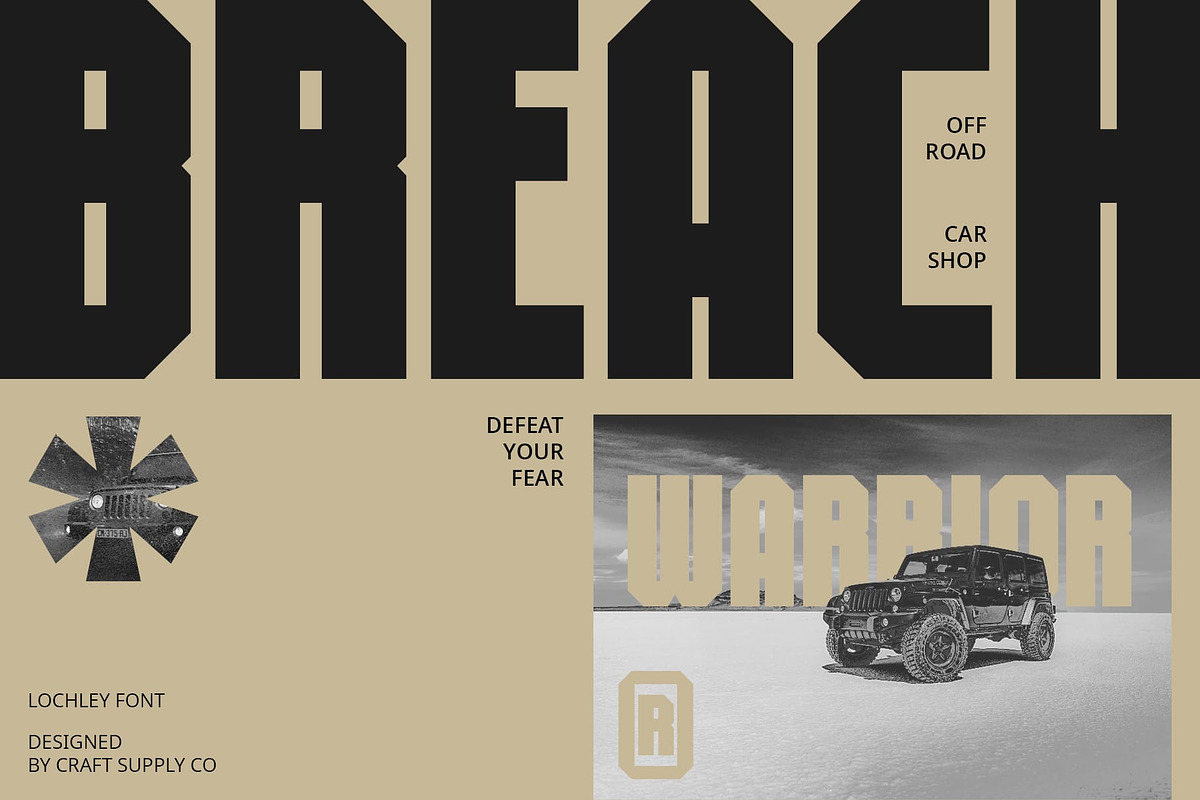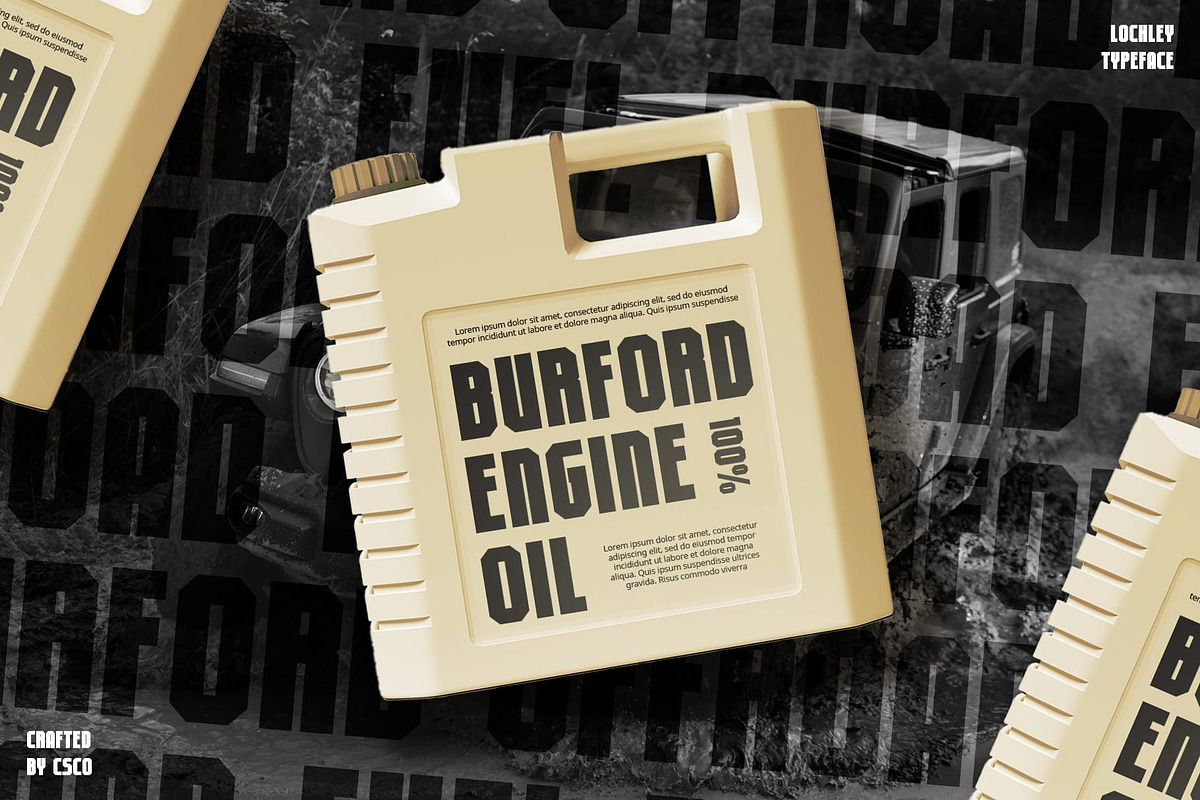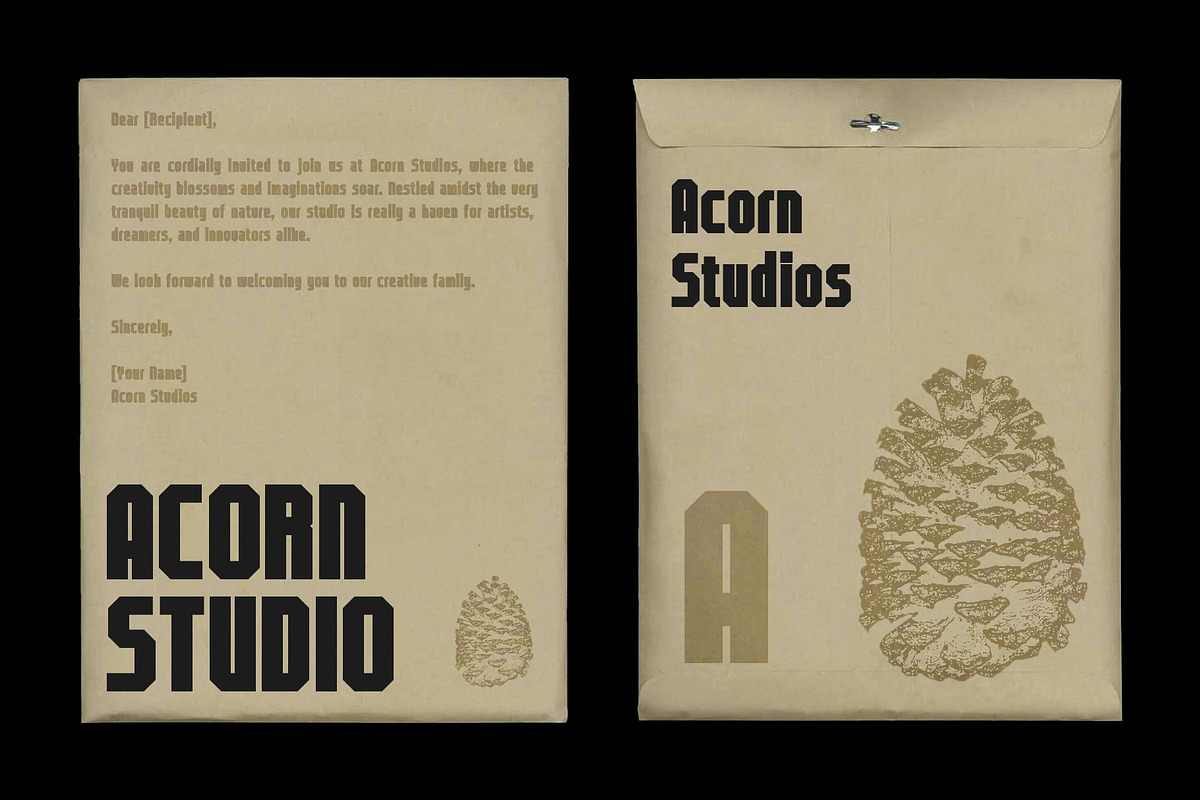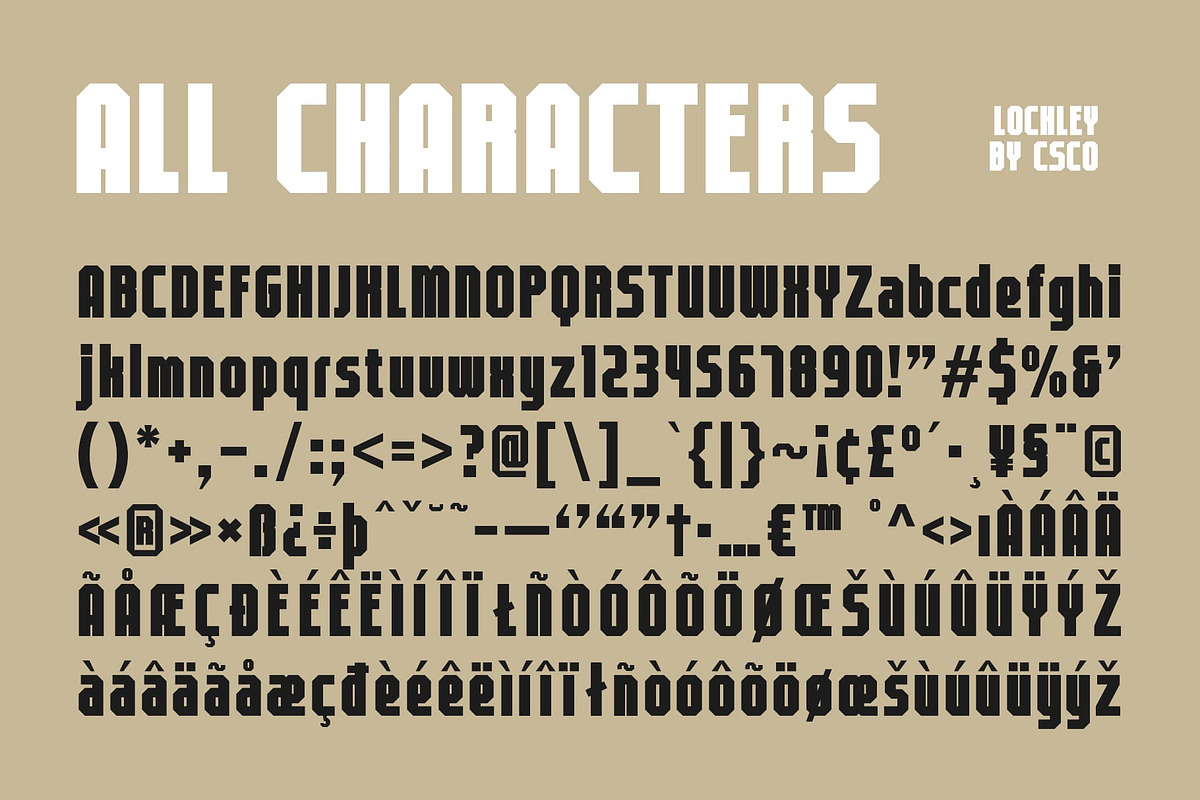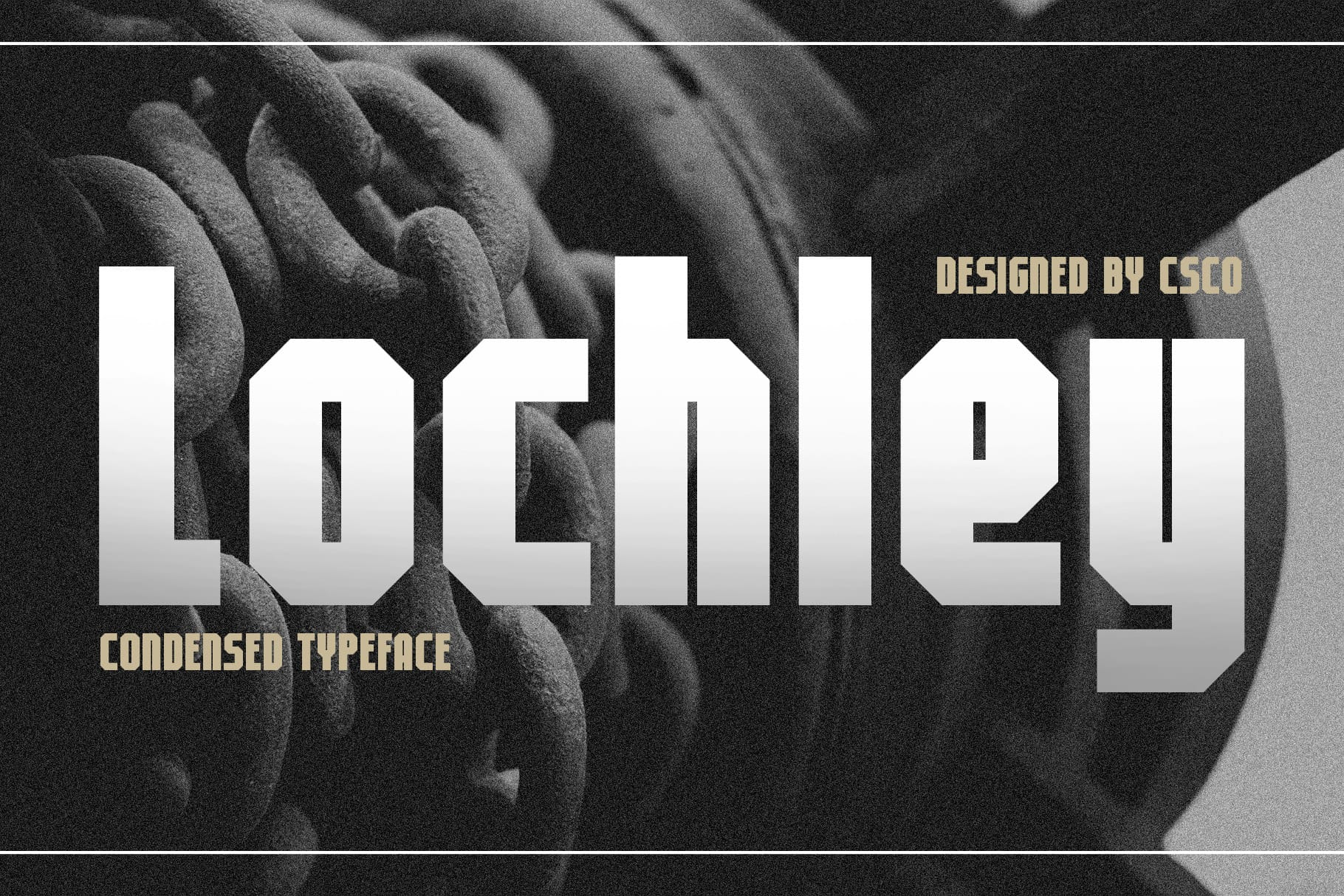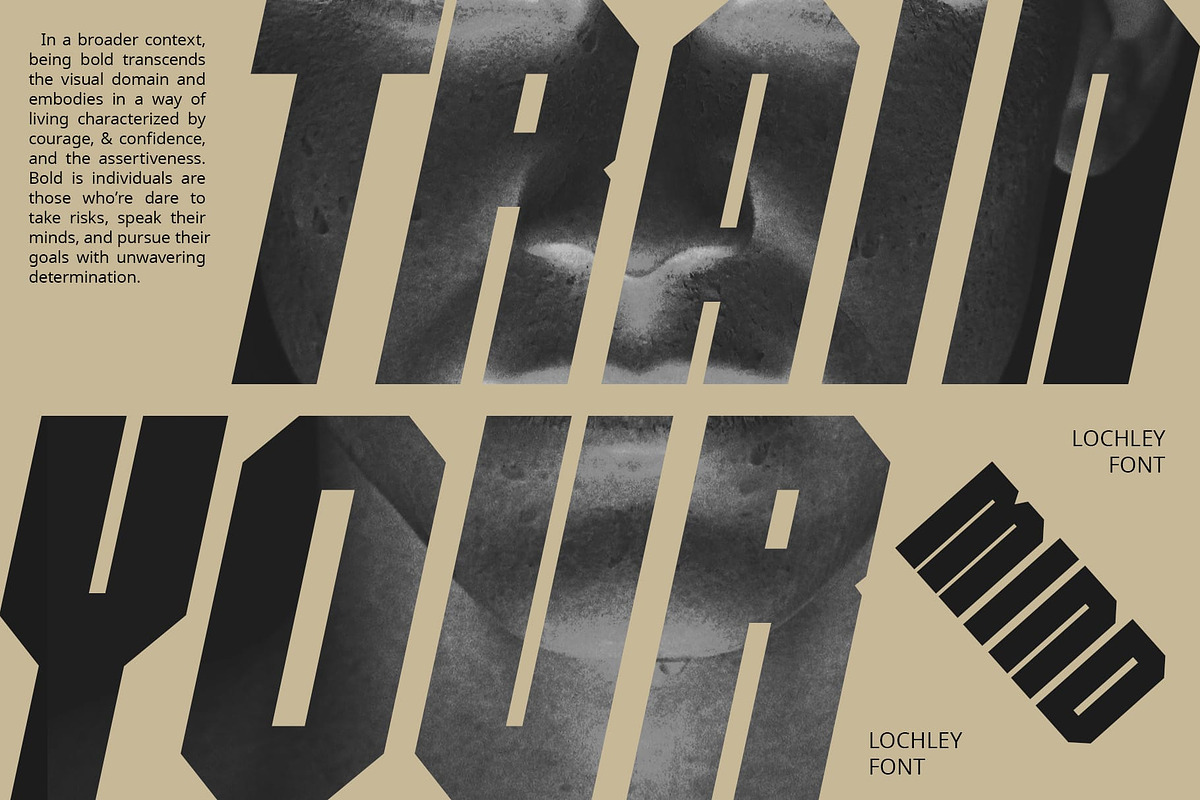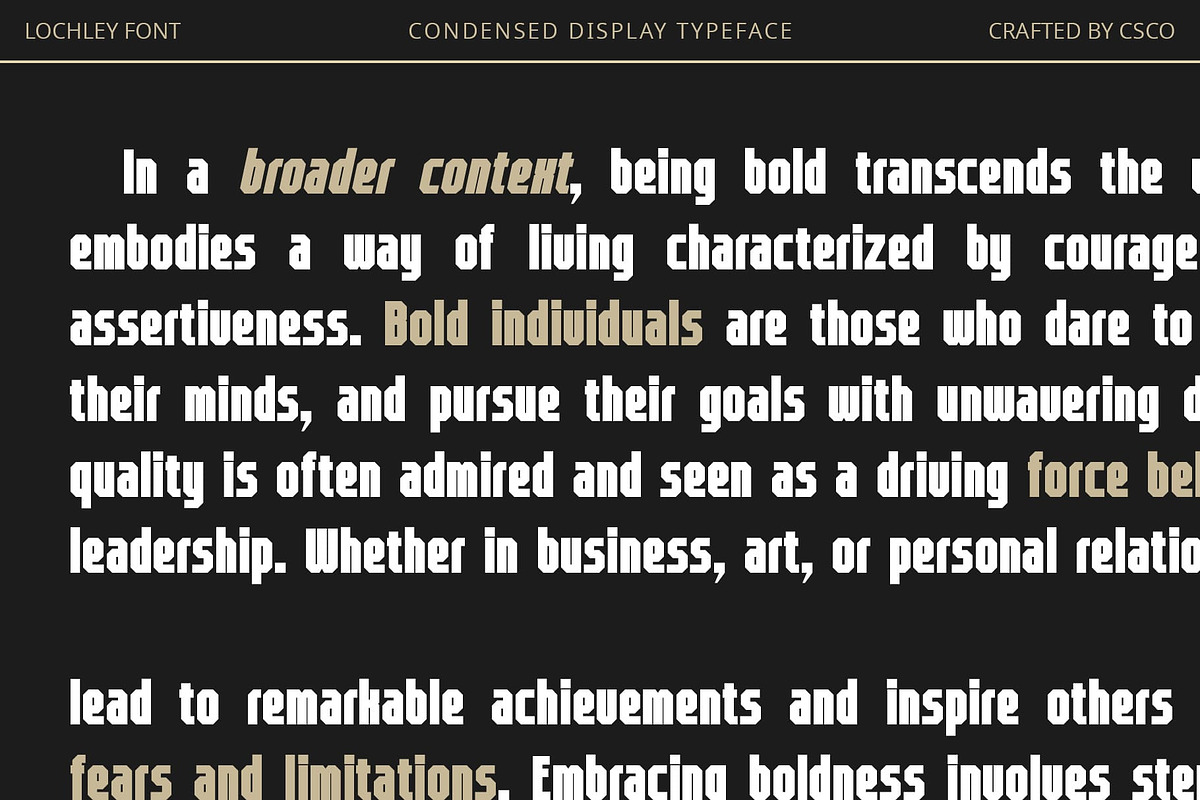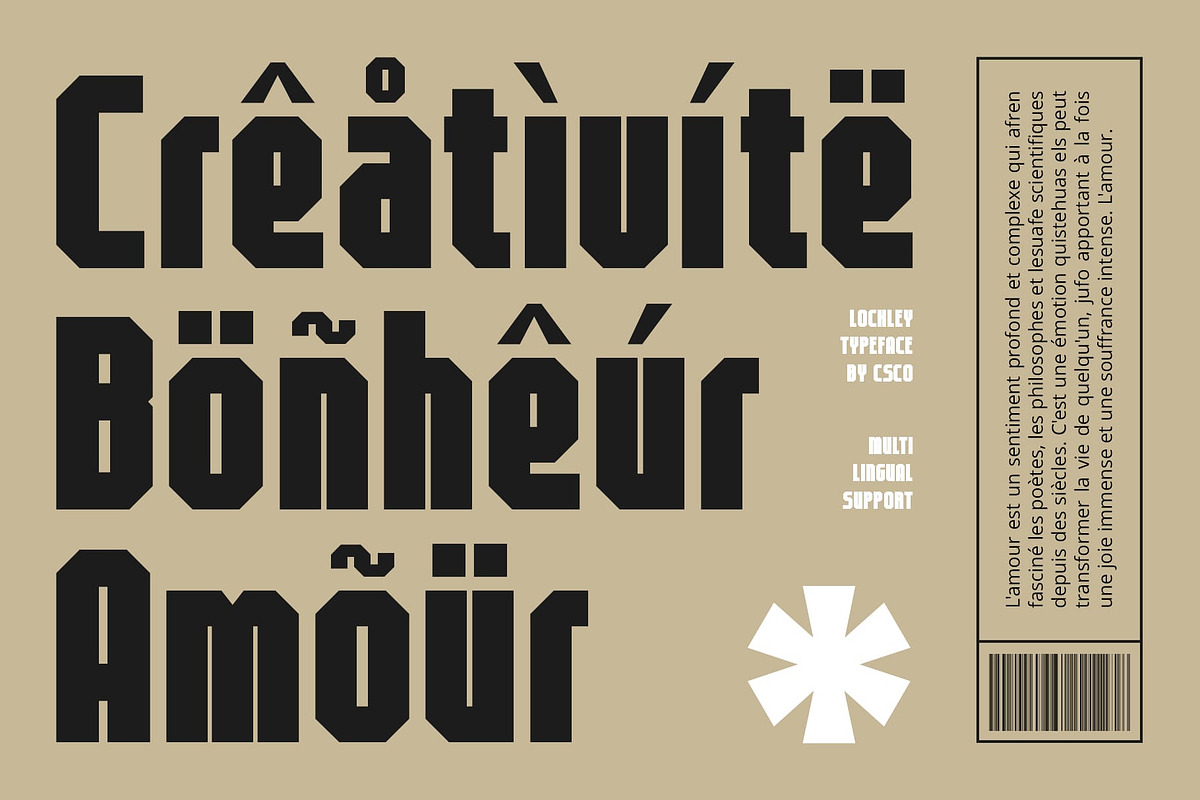
Lochley – Condensed Font
Lochley – Condensed Font: Where Boldness Meets Tech Innovation
Bold Condensed Tech Sans Design
Lochley – Condensed Font a bold and condensed sans-serif font designed with a tech style, perfect for automotive designs. Its strong lines and modern aesthetic make it ideal for projects that require a powerful and contemporary look.
Versatile and Impactful
With its versatile design, Lochley Font is suitable for a variety of uses, including headlines, posters, and branding. Its bold and condensed form ensures a strong visual presence, making your designs stand out.
Enhanced Tech Appeal
Lochley Font prioritizes tech appeal, ensuring that your designs exude modernity and innovation. Whether used in print or digital media, this font adds a dynamic element that resonates with the high-tech automotive industry.
Perfect for Automotive Designs
Whether you’re creating car advertisements, technical brochures, or sleek branding materials, Lochley Font is the perfect choice for projects that require a bold and tech-savvy aesthetic. Its contemporary design ensures that your work will always look cutting-edge and professional.
- Lochley Regular
- Lochley Italic